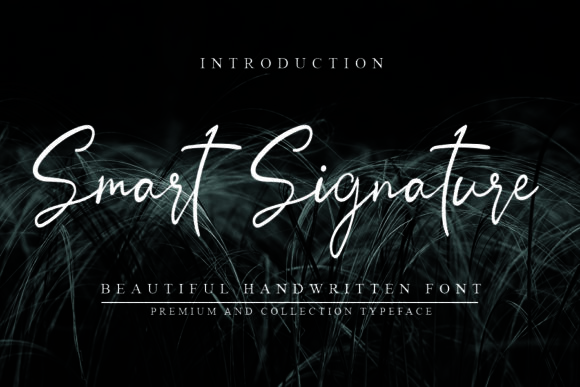
About Smart Signature Font
Introducing “Smart Signature,” a flowing handwritten font that embodies intelligence and elegance. Its captivating allure makes it an ideal choice for a wide range of design projects, infusing a touch of handcrafted sophistication into every creation. Whether you’re working on branding, quotes, invitations, or any other design, “Smart Signature” will captivate your heart with its distinct and timeless charm.
With “Smart Signature,” you have a font that flows with graceful fluidity while maintaining an air of intelligence. Its authentic handwritten style brings an air of uniqueness and refinement to your designs, creating a visual experience that is both elegant and captivating. Whether you’re crafting sophisticated branding, insightful quotes, or engaging invitations, this font adds a layer of beauty that leaves a lasting impression.
The versatility of “Smart Signature” lies in its ability to seamlessly complement various design styles and themes. Its flowing and elegant appeal makes it a dependable choice for all your creative endeavors that aim to communicate intelligence and sophistication.
Unleash your creativity and witness how “Smart Signature” enhances your designs with its elegant and refined touch. Whether you’re designing polished logos, creating thoughtful stationery, or producing eye-catching social media graphics, this font will infuse your work with a sense of authenticity and allure that commands attention.
So, embrace the allure of “Smart Signature” and let it become an integral part of your design toolkit. Allow its distinct and timeless style to inspire your designs, transforming them into spectacular works that convey intelligence and sophistication. Whether you’re an experienced designer or a passionate enthusiast, “Smart Signature” empowers you to create visuals that stand out and make a statement. Let “Smart Signature” be the key to unlocking elegance and intellect in your designs, and watch as it elevates your projects to new levels of excellence and distinction!